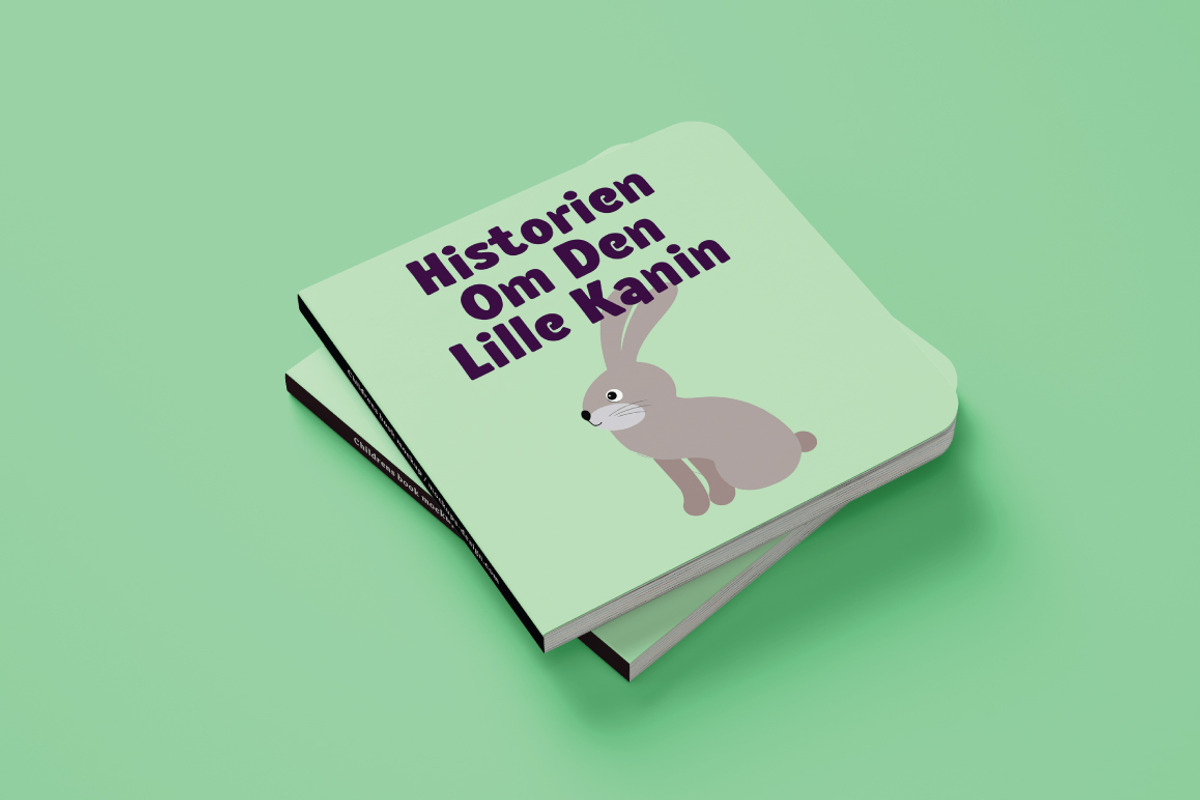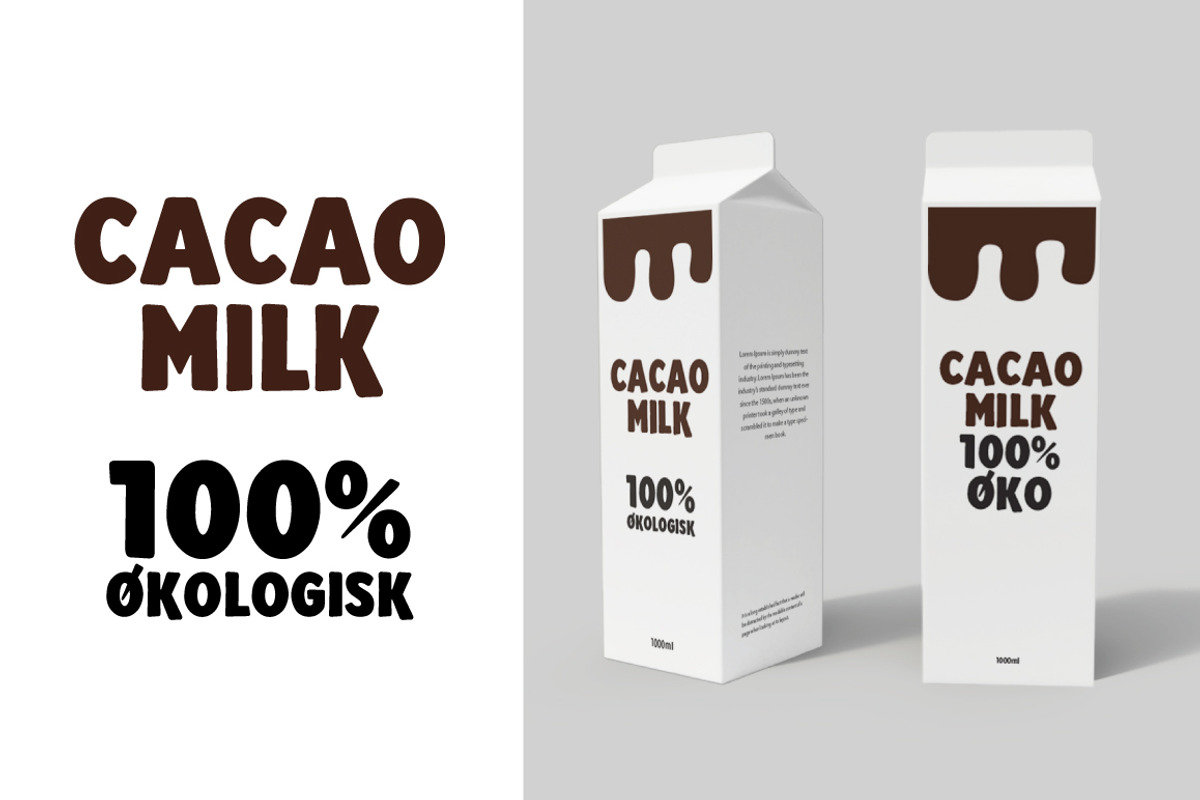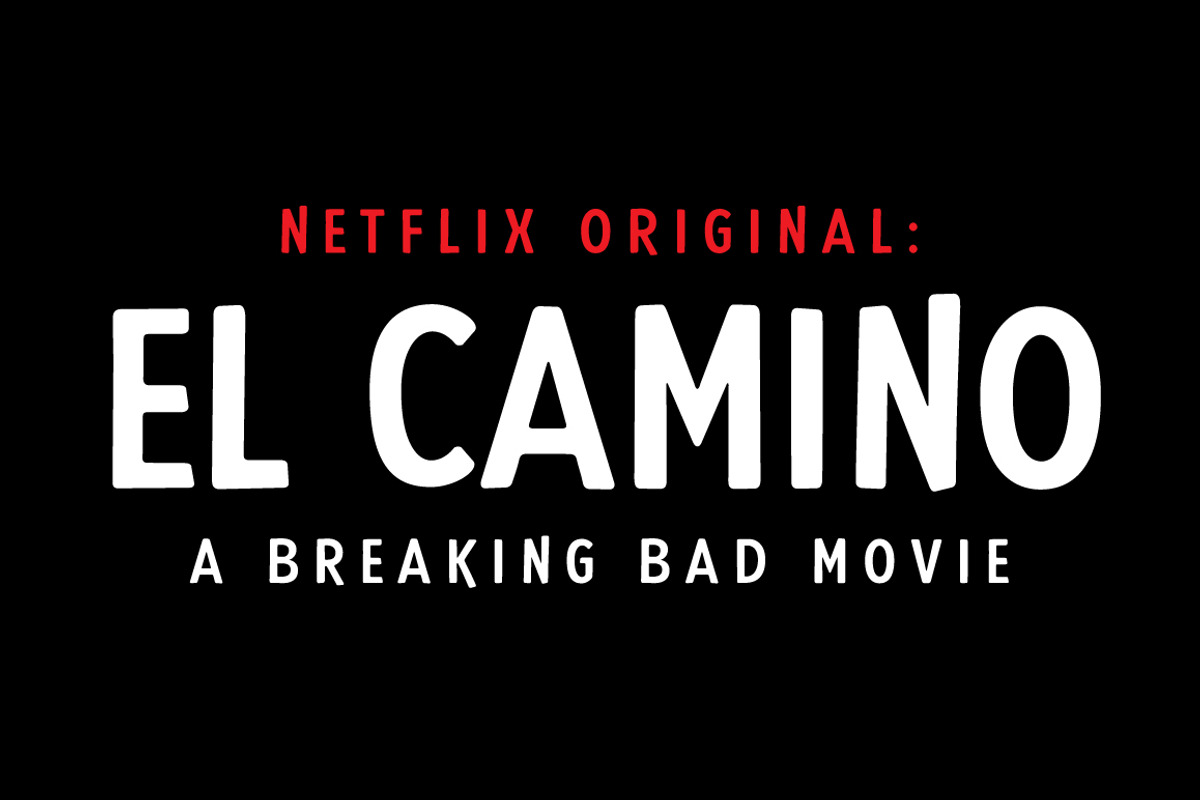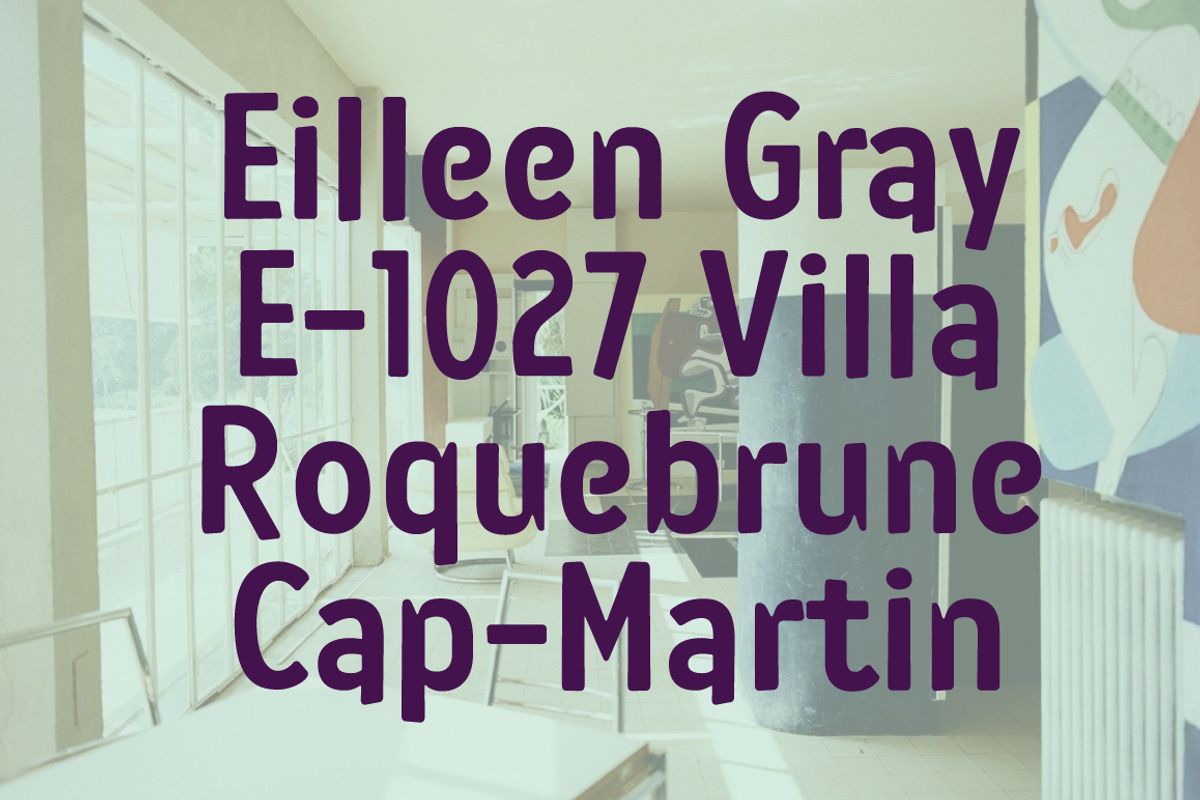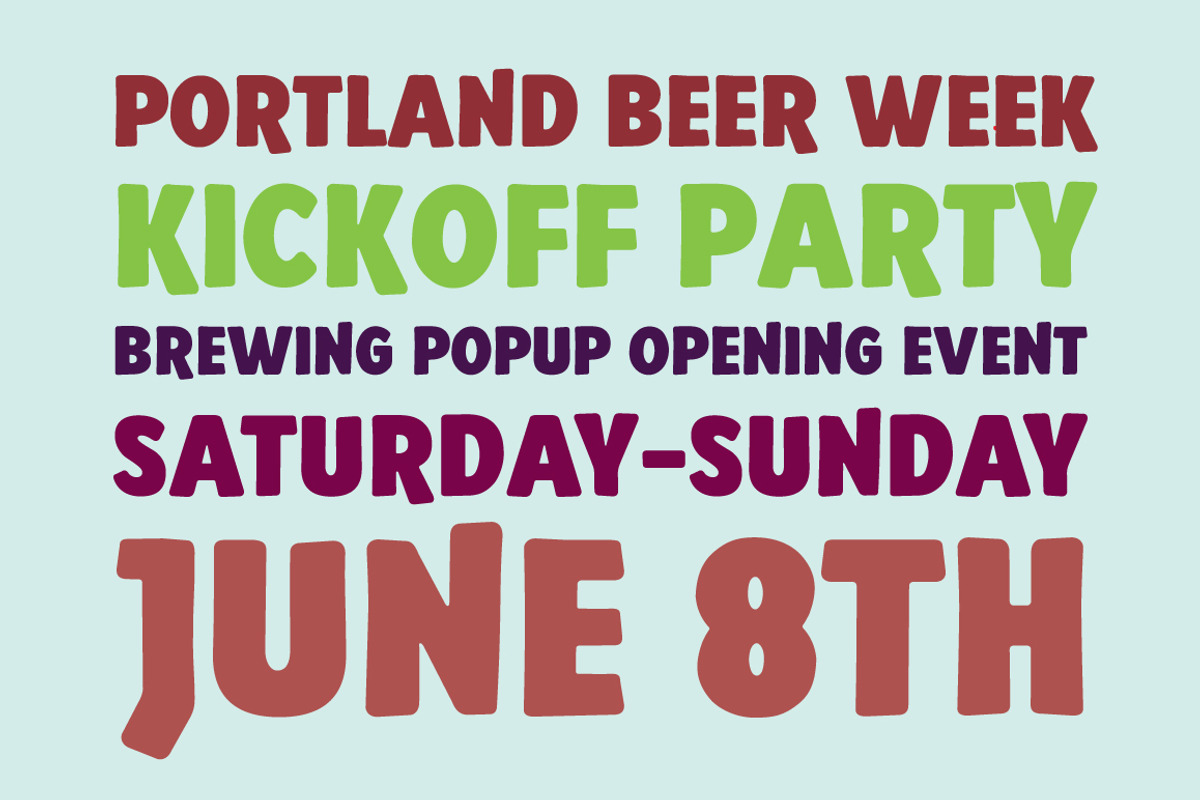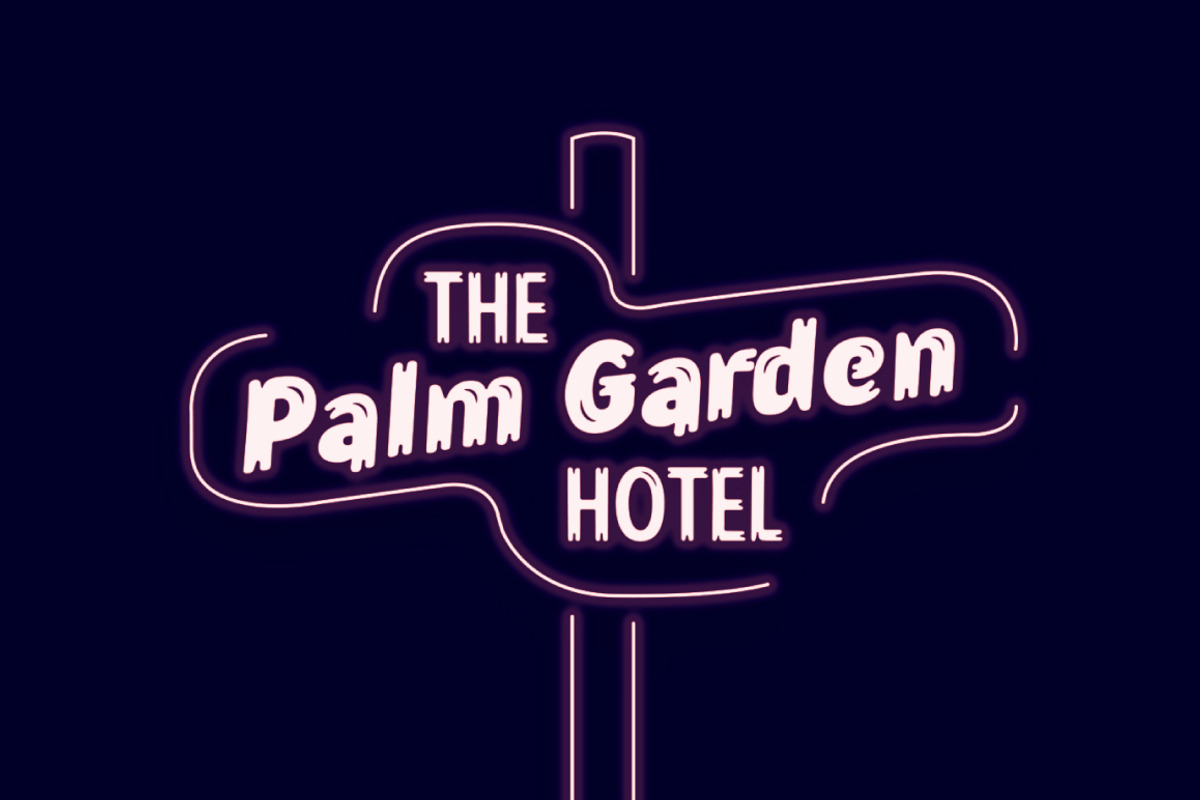
Lonkie
The name Lonkie invokes 3 words: glamour, ambition and cordiality. The idea of making a handwritten font. With its playful and soft forms, it also expresses a form of a professional look that can be used in many different contexts.
This mixture of the pure and raw expression is based on many research inspirations design projects focusing on packaging design, organic and even old danish movie posters from the 30s.
This font is great for logo, poster, package design, children books, cinema posters, branding, party invitation, and many many other cool design projeects. Enjoy!